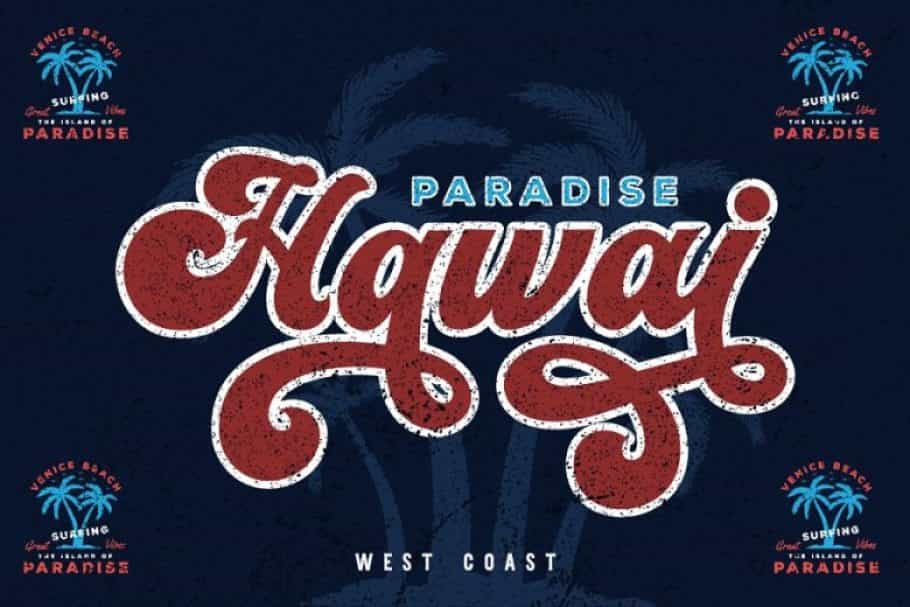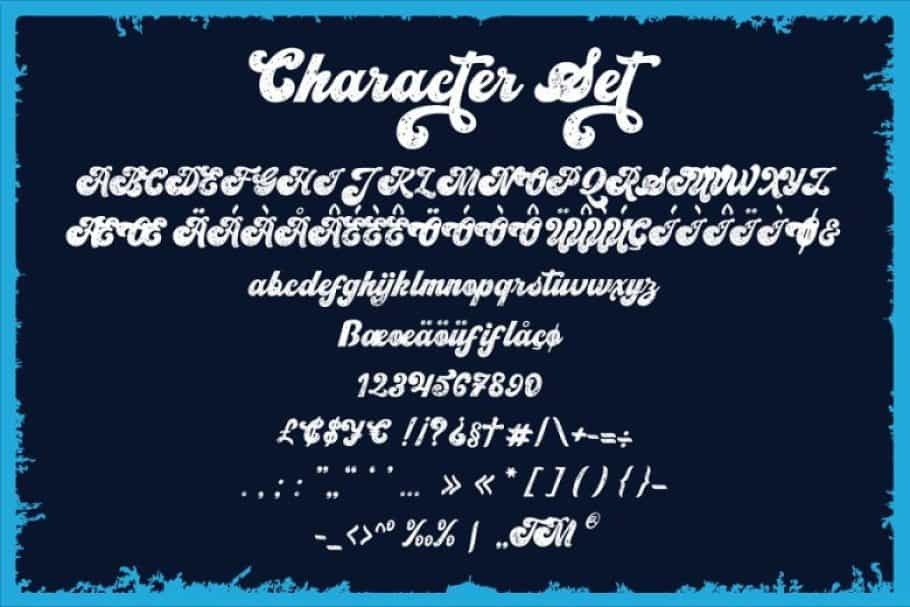
Discover Vintage King Font, part of the Retro Script Vintage collection—a versatile and unique font perfect for adding a personal touch to your projects. Download it for free and enjoy crafting designs with style, from invitations to social media posts. This font is available exclusively for personal use, giving you the freedom to create without limits. Unlock your creativity with Vintage King Font today!
This is were I introduce the Vintage King Font. Vintage King is a pack of a vintage bold script font with both crisp and rough versions, the style of Vintage King is focused on the bold design of typography from the classic eras of the 70’s and the 80’s. This font is ideal for the old school and vintage designs like badges, logos, posters, t-shirts, packaging, book covers. .. and much more!